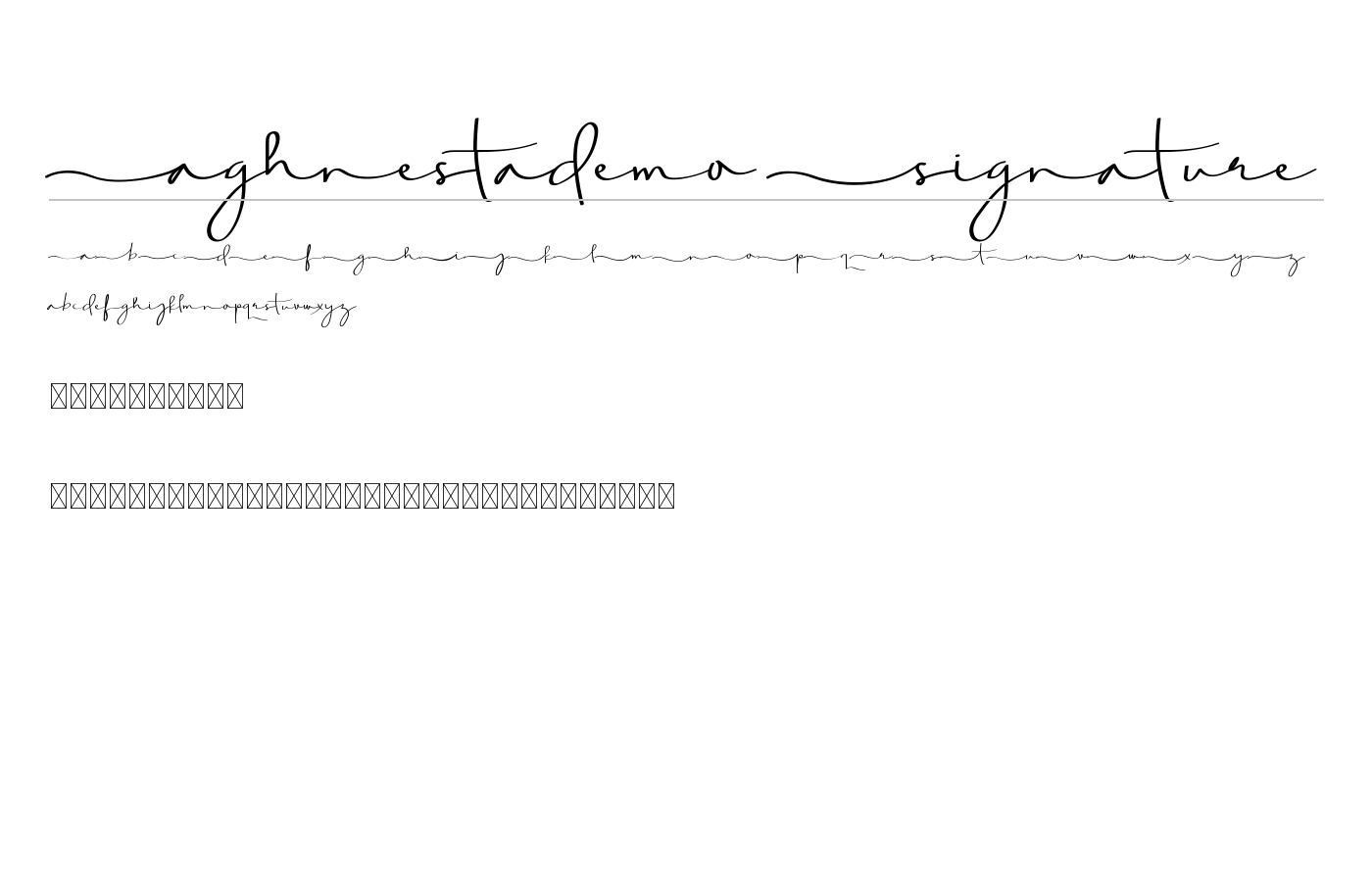
Aghnestademo is a delicate, handwritten script font with a light and airy feel, characterized by its thin, flowing strokes and elegant, elongated letterforms. Its casual yet refined signature style makes it ideal for personal branding, invitations, and creative projects that seek a touch of sophistication and individuality. This font works best in designs that require a graceful, modern personality with an intimate and approachable tone.
Aghnestademo Font
About Aghnestademo Font
| Font family | Aghnestademo Font |
| Designer | saila nurissalma |